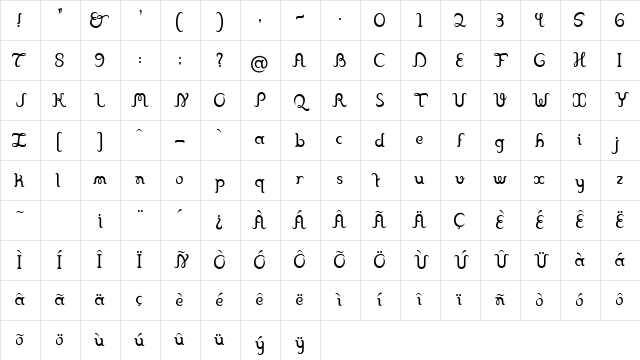
Franklin Cascaes is a composed and adaptable typeface that performs quietly and consistently across a wide range of design contexts.
Who designed the Franklin Cascaes Regular font?
This font was published by Saulo Deboni, Mirian Mitsue Yanai & Silvia Cristina Medeiros. Check the technical specs section for copyright and designer details.